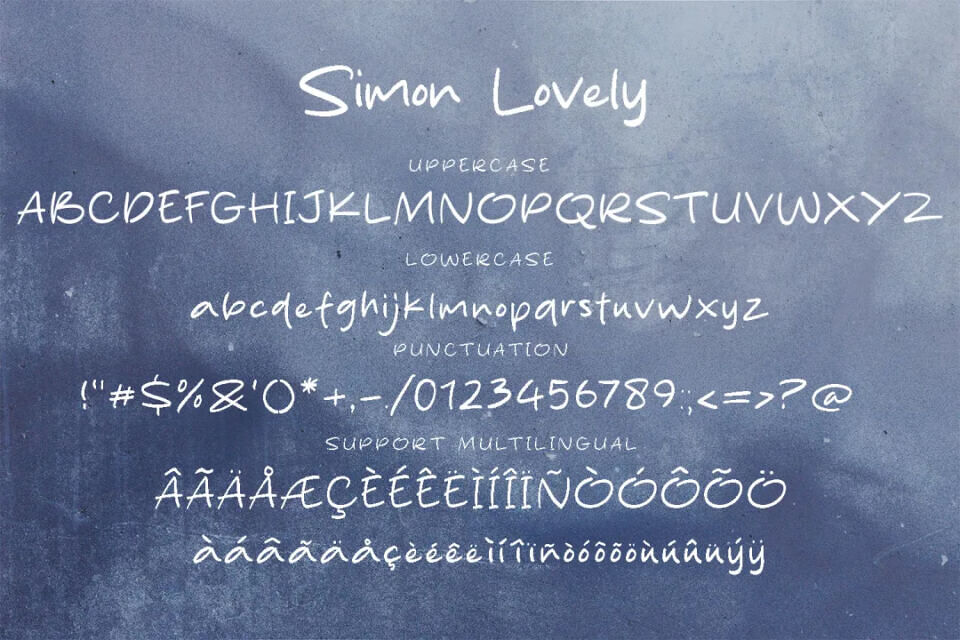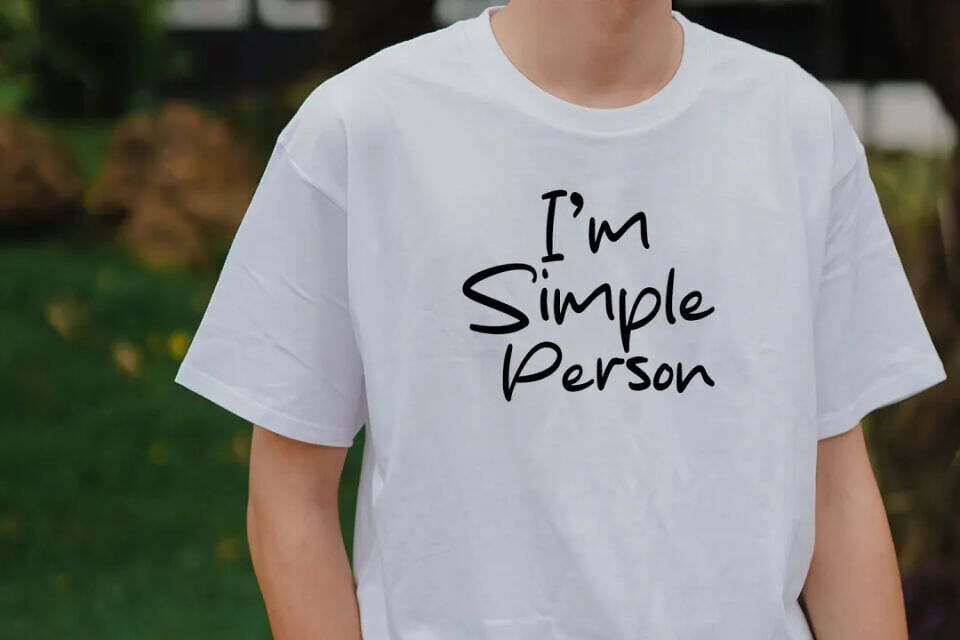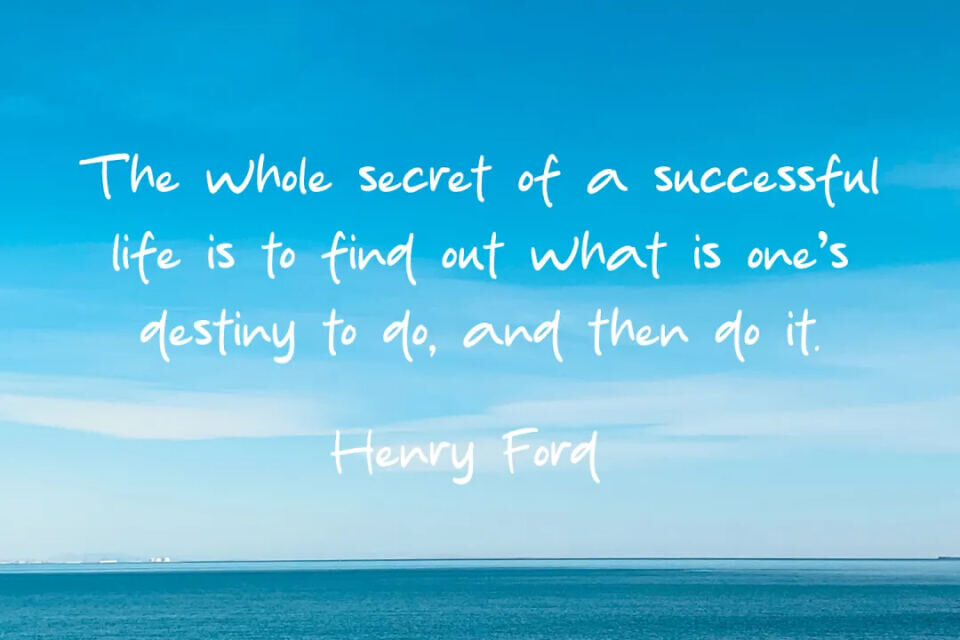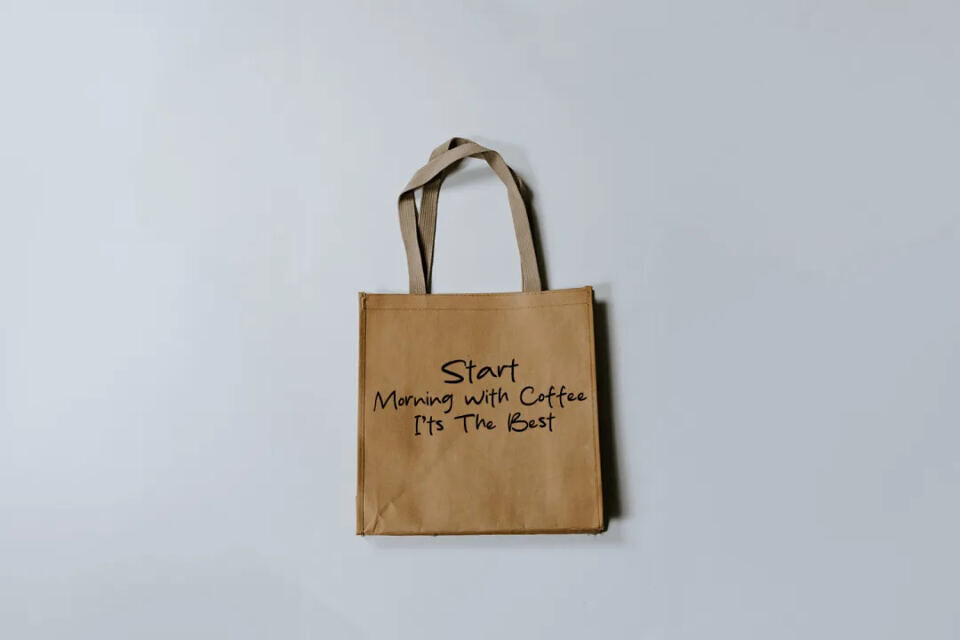
Silent Handwritting Font
Silent Handwritting is a charming handwritten script font by MJType, featuring smooth strokes and a natural flowing style. Its casual yet elegant appearance makes it perfect for logos, invitations, social media graphics, branding, quotes, and creative projects that need a personal touch. With playful curves and readable characters, this font adds warmth and authenticity to both modern and artistic designs.
Designed by: MJ Type